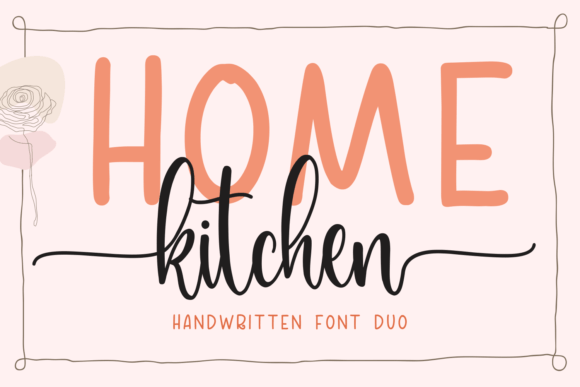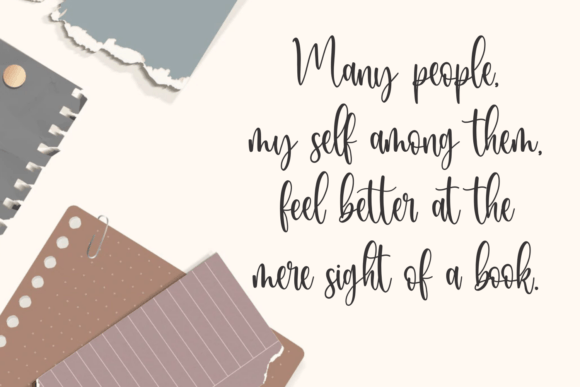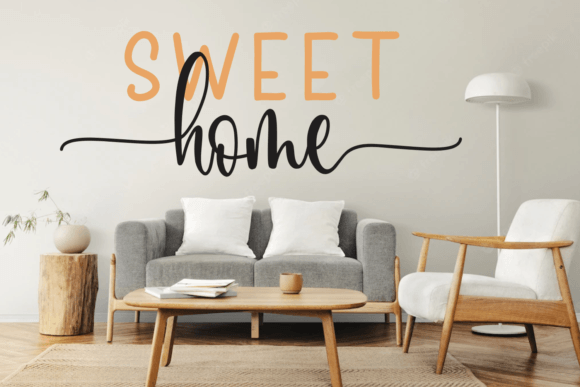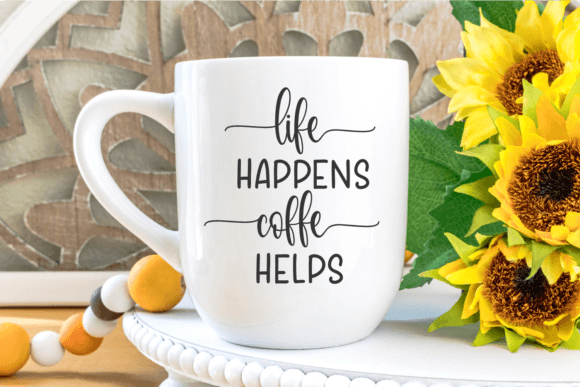
Home Kitchen Font
Proudly present the Home Kitchen font duo.
It consists of two fonts designed; SANS and SCRIPT to complement each other perfectly
It is a quirky and natural hand-drawn font. Together or apart, these fonts are ideal for adding a chic and cheery touch to your crafts.
This font is ideal for crafting, branding, and decorating any project. These fonts are perfect for wedding invitations or your blog.
Also with their help, you can create a logo or beautiful frame for your home.
Or just use it for your business, book covers, stationery, marketing, magazines, and more. Fall in love with its incredibly versatile style and use it to create spectacular designs!
Use this font for any crafting project that requires a personalized look!